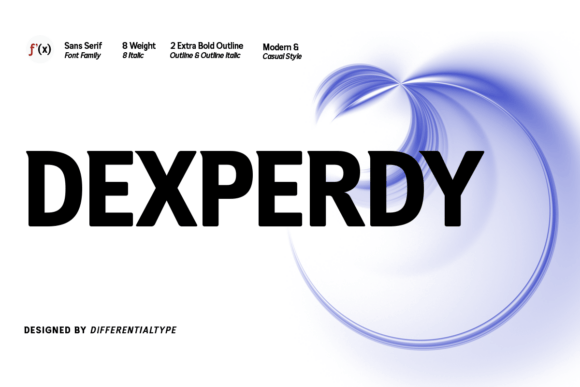
Dexperdy Font: The Epitome of Modern Sans Serif Elegance
In the realm of typography, few fonts manage to strike a balance between modernity and timelessness. Dexperdy, a contemporary sans serif font collection, is one such exceptional find. With its clean lines, nuanced curves, and an impressive range of weights, Dexperdy is redefining the landscape of modern design. This article delves into the world of Dexperdy, exploring its unique characteristics, versatility, and the myriad of design applications it can elevate.
The Uniquely Minimalist Allure of Dexperdy
Dexperdy’s minimalist allure lies in its simplicity and the powerful statement it makes through its understated elegance. The font’s clean lines and subtle curves create a harmonious balance that appeals to modern sensibilities. This minimalist approach doesn’t just make Dexperdy aesthetically pleasing; it also ensures that the font is highly legible across various mediums, from digital screens to print.
Eight Distinct Weights for Unparalleled Versatility
One of the standout features of Dexperdy is its comprehensive range of weights, from the delicate Thin to the assertive Extra Bold. This spectrum of weights allows designers to employ Dexperdy in a multitude of contexts without compromising on style or legibility. Whether you’re crafting a dynamic title that demands attention, a subtle body text that whispers elegance, or a striking logo that embodies strength, Dexperdy has a weight to perfectly match your creative vision.
- Thin: Ideal for subtle headings or when a delicate touch is required.
- Light: Perfect for body text or less prominent design elements where a bit more weight is needed.
- Regular: The go-to weight for general use, offering a balance of elegance and readability.
- Medium: Adds a touch of assertiveness, suitable for headings or emphasis.
- Bold: For when you want to make a statement without going overboard.
- Extra Bold: The heaviest weight, designed for maximum impact in titles or logos.
Versatility Unleashed: Dexperdy in Design Applications
Dexperdy’s versatility is one of its most compelling attributes. Its range of weights, combined with its clean and modern aesthetic, makes it an invaluable asset for a wide array of design applications.
Dynamic Titles and Headings
For titles and headings, Dexperdy’s lighter weights offer an elegant solution. The font’s crisp lines and subtle curves ensure that your titles are not only eye-catching but also convey a sense of sophistication. The bolder weights, on the other hand, are perfect for when you need to draw attention or convey strength and assertiveness.
Striking Logos and Branding
In the realm of logos and branding, Dexperdy shines with its ability to convey modernity and professionalism. The Extra Bold weight, with its commanding presence, can serve as a powerful logo, while the thinner weights offer a more subtle approach for brands aiming for a sleek, contemporary look.
Impactful Editorial Work
For editorial projects, such as magazines, newspapers, and digital publications, Dexperdy offers a cohesive and versatile typographic solution. Its range of weights ensures that you can maintain visual hierarchy and interest throughout your content, from headings to body text.
Effortlessly Blending Strength and Subtlety
Dexperdy’s true strength lies in its ability to blend seemingly contradictory qualities – strength and subtlety. This balance allows designers to create work that is not only visually striking but also nuanced and thoughtful. Whether you’re aiming for impact or elegance, Dexperdy provides the tools to leave a lasting impression on your audience.
Strength in Design
The bolder weights of Dexperdy, particularly the Extra Bold, exude confidence and assertiveness. They are perfect for designs that require a strong visual statement, commanding attention and conveying power.
Subtlety in Design
On the other end of the spectrum, the lighter weights of Dexperdy offer a more understated approach. They are ideal for creating a sense of elegance and refinement, perfect for designs where subtlety is key.
Dexperdy is more than just a font – it’s a design experience. Its uniquely minimalist allure, combined with its comprehensive range of weights and unparalleled versatility, makes it an indispensable tool for modern designers. Whether you’re crafting dynamic titles, striking logos, or impactful editorial work, Dexperdy offers the perfect blend of strength and subtlety to elevate your designs and leave a lasting impression.